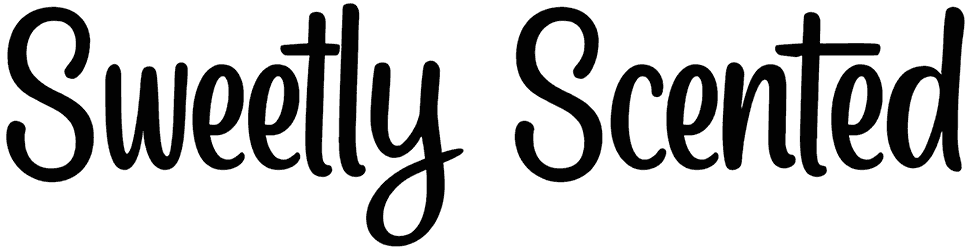
Sweetly Scented Font
Sweet and minimal words can be harmonized with any layout, and Sweetly Scented can help you make it happen. With a silky and natural mood, this invitation font can be used for official or unofficial projects. It doesn’t come up with numbers, but you can count on it to promote many designs from business cards to tattoos.